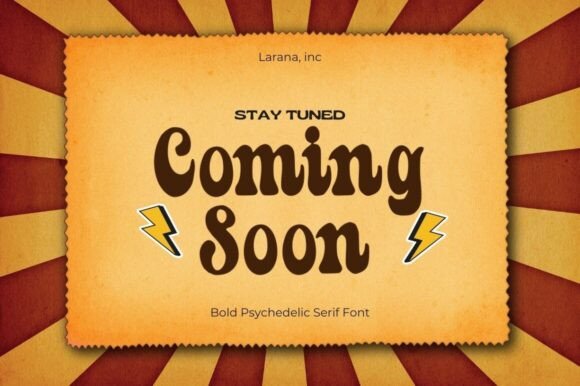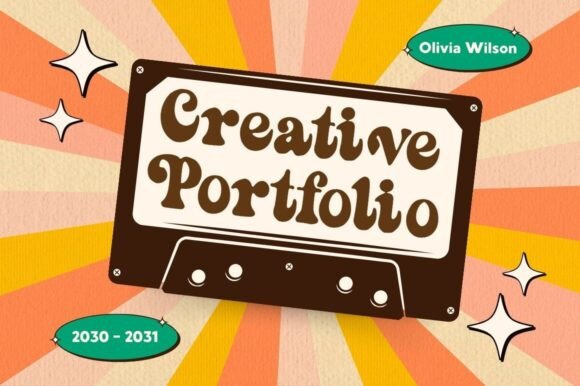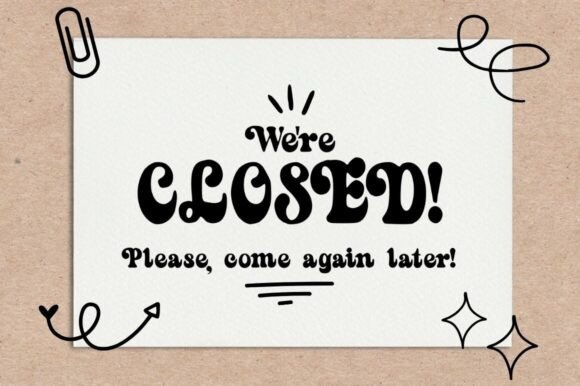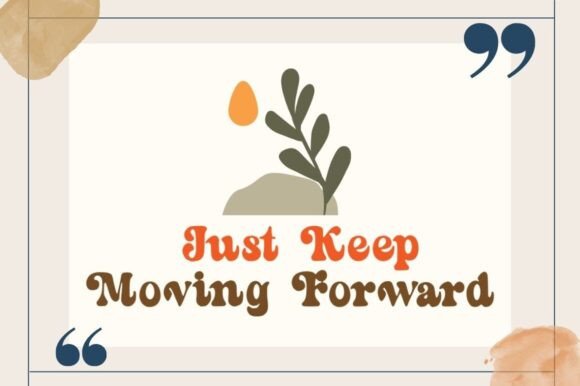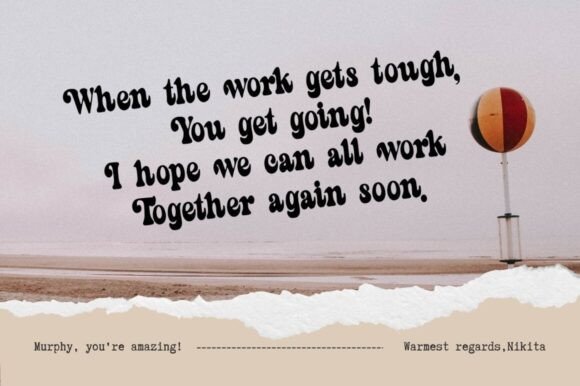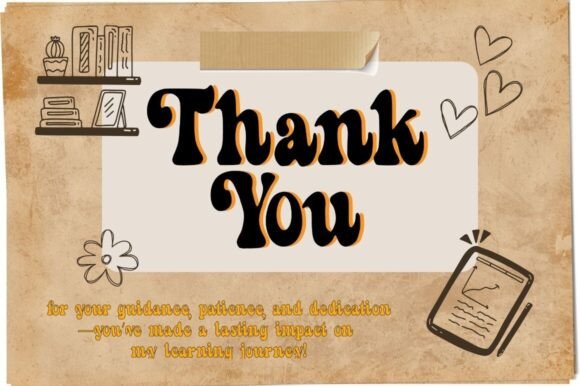
Getting Your Groovy On: The Groovy Puff Font
Do you remember that moment when you stumbled upon the perfect font for your project, and suddenly everything fell into place? It’s like finding that hidden gem in a thrift store – it’s a game-changer. For designers, it’s a rush of excitement, and for creatives, it’s a chance to bring their vision to life. That’s exactly what the Groovy Puff Font does – it brings a burst of 60s-70s psychedelic vibes to your design project.
This stunning font is more than just a design resource; it’s a high-quality tool that adds a touch of whimsy to any creative project. With its bold, flower-power-inspired serif style, Groovy Puff Font is perfect for retro branding, event posters, or any project that needs a fun, trippy aesthetic. And the best part? It’s available for free download, making it a valuable addition to any designer’s toolkit.
Key Features of Groovy Puff Font
- Unique, hand-drawn design with a playful and whimsical feel, perfect for creative projects.
- Perfect for use in digital design, from social media graphics to web design, and print materials like posters and flyers.
- Unique characteristics include swashes, ligatures, and alternate characters, adding an extra layer of creativity to any design project.
Honest Review: Groovy Puff Font
As a designer, I’ve had the chance to try out the Groovy Puff Font, and I must say it’s been a mixed bag. Let’s dive in.
- The font is super fun and playful, making it perfect for creative projects that need a bit of whimsy.
- The transparent background option is also a nice touch, giving designers more flexibility when it comes to layering and composition.
- The font is a bit limited in terms of its style – it’s really only suitable for projects that require a retro or vintage vibe.
- The character set is also a bit limited, which can make it tricky to use for longer blocks of text.
Overall, I’d say the Groovy Puff Font is a solid addition to any designer’s toolkit – just be aware of its limitations and use it accordingly. With a bit of creative planning, it can be a really effective design resource.
How to Use Groovy Puff Font
The Groovy Puff Font is ideal for a variety of creative projects, including social media graphics, presentations, blog posts, and documents. Its transparent background feature makes it perfect for designs that require a clean and minimalist look. Use the font to add a touch of creativity and professionalism to your designs.
Can I use the Groovy Puff Font in combination with other fonts?
Yes, the Groovy Puff Font can be used in combination with other fonts to create a unique and visually appealing design. When combining fonts, be mindful of the font sizes, line spacing, and color schemes to ensure that the text is readable and visually appealing. You can experiment with different font combinations to find the perfect look for your creative project.